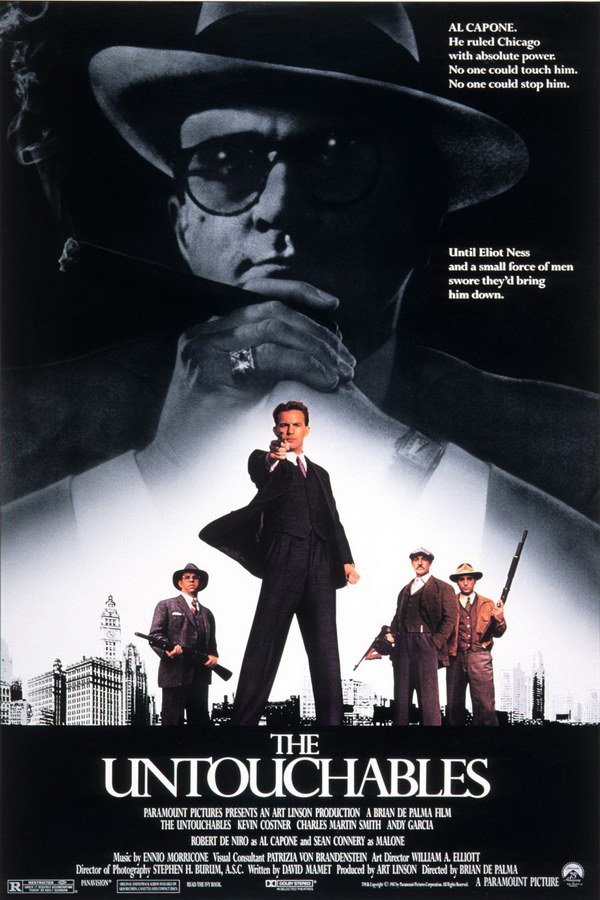
The Untouchables Font
Fonts in UseThe Untouchables is a 1987 crime drama film directed by Brian De Palma, starring Kevin Costner, Sean Connery, and Robert De Niro. It tells the story of Eliot Ness and his team of law enforcement officers who try to take down Al Capone's bootlegging empire during the Prohibition era in Chicago.
"The Untouchables" title font appears to closely resemble Eric Gill's Perpetua Bold font, which is commercially available and further information can be found here.